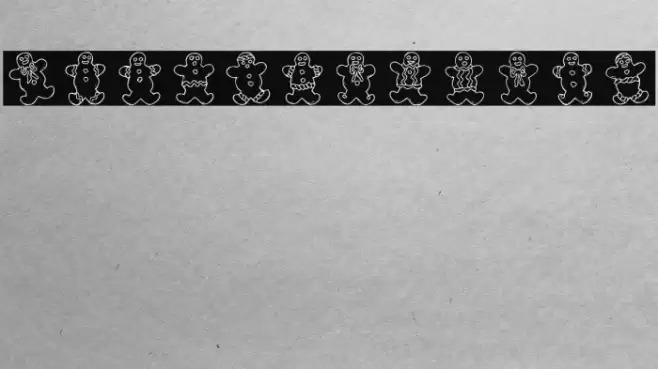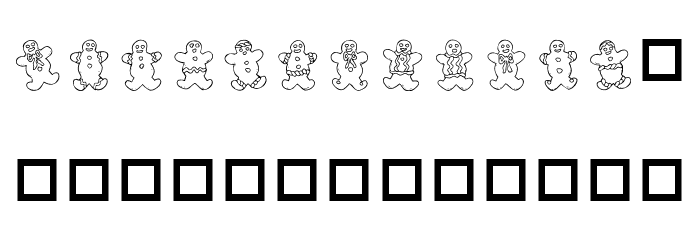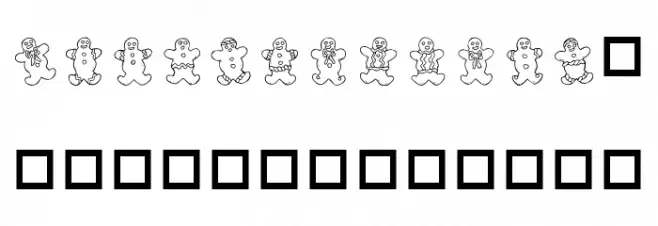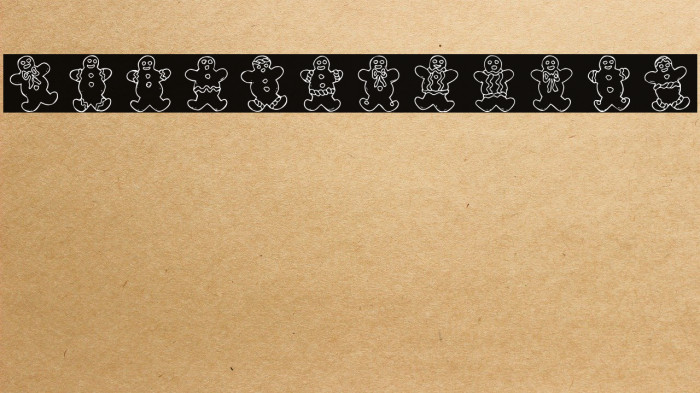
Destiny's Gingerbread Dings Font
This font features a whimsical and playful design, showcasing a series of gingerbread characters in various poses and outfits. Each character is intricately detailed, capturing the essence of holiday cheer and festive spirit. The font is decorative and primarily intended for thematic or seasonal use, offering a unique and charming aesthetic. The characters are evenly spaced, maintaining a consistent visual flow. This font is not suitable for body text but excels in adding a touch of fun to creative projects.
A playful, decorative font featuring detailed gingerbread characters from Uncategorized fonts.
- Proposed Projects: Ideal for holiday cards, festive invitations, seasonal decorations, and playful branding.
- Use Case: Logos, Headlines, Decorative elements